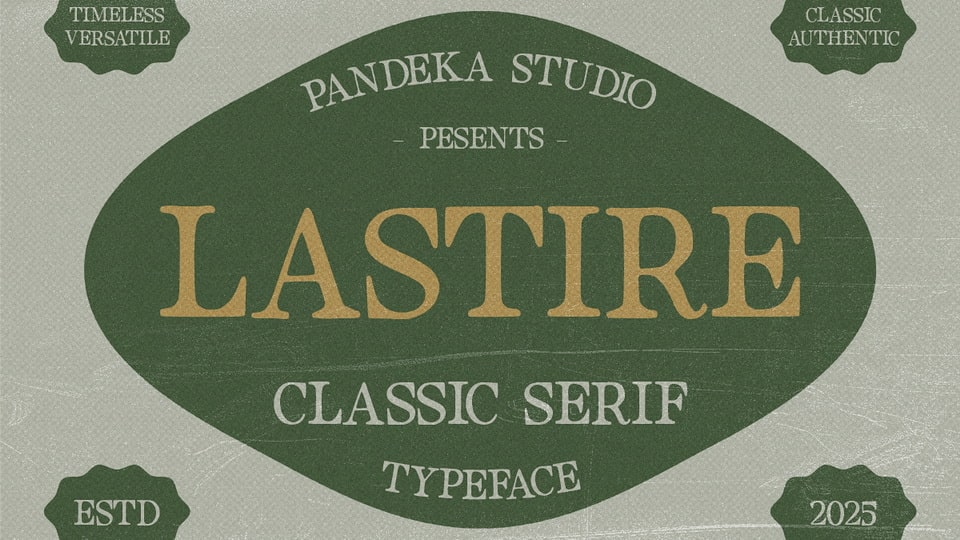
Download Lastire font, a classic serif typeface that combines elegant typography with bold lettering and vintage aesthetics, ideal for projects that demand a blend of retro charm and modern refinement.